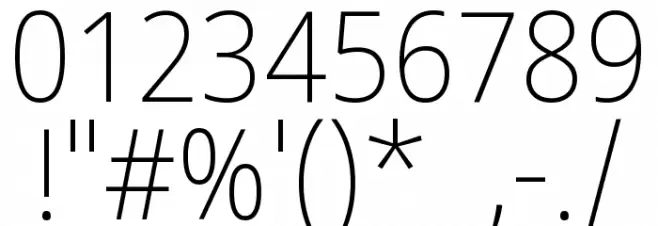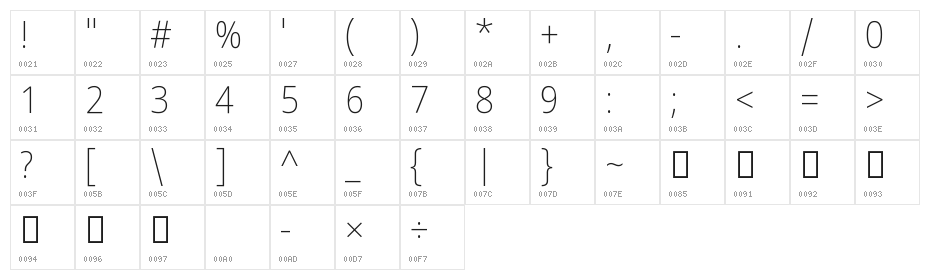
Noto Sans Sinhala UI SemiCondensed ExtraLight Font
Noto Sans Sinhala UI SemiCondensed ExtraLight Description
This font features a clean and modern design with a focus on readability and simplicity. The characters are evenly spaced, with a semi-condensed width that allows for efficient use of space without sacrificing legibility. The strokes are thin and consistent, contributing to an overall light appearance. The numerals and special characters are designed to blend seamlessly with the alphabetic characters, maintaining a cohesive look throughout. This font is particularly well-suited for user interfaces and digital displays, where clarity and space efficiency are paramount.
| Use Case | User interfaces, digital displays |
| Proposed Projects | Ideal for user interfaces, mobile apps, websites, and digital displays where clarity and space efficiency are important. |